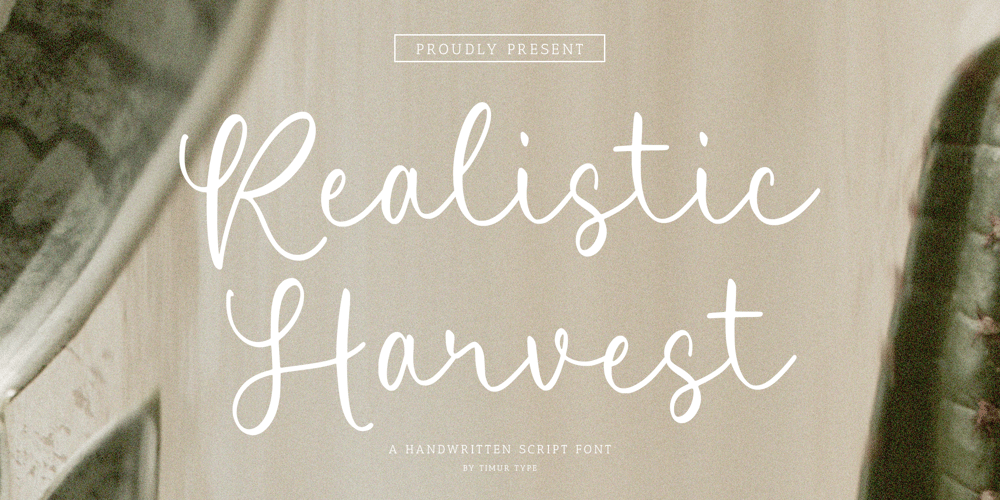
Realistic Harvest Font Family was designed by Wara Sigit Tri Pamungkas and published by Timurtype. Realistic Harvest contains 1 styles and family package options. Introduced by Timurtype Studio!Realistic Harvest is a Handwritten Script Font this font Captivates with elegance Handwritten font, where every curve reveals a story of elegance and every detail is a brushstroke of luxury. A visual symphony for those who appreciate the art of beauty.Realistic Harvest Font also supports multilingualism.Enhance your designs with our original fonts, feel free to comment or provide feedback, Enjoy the fonts Thank You